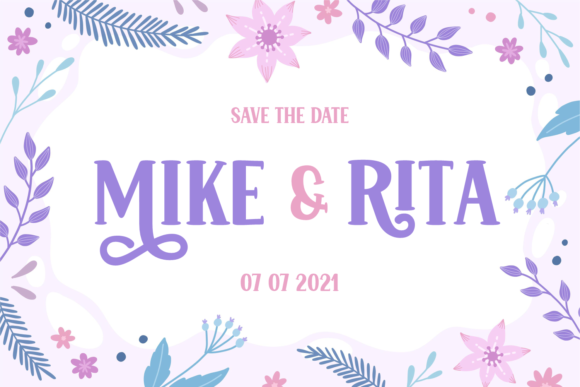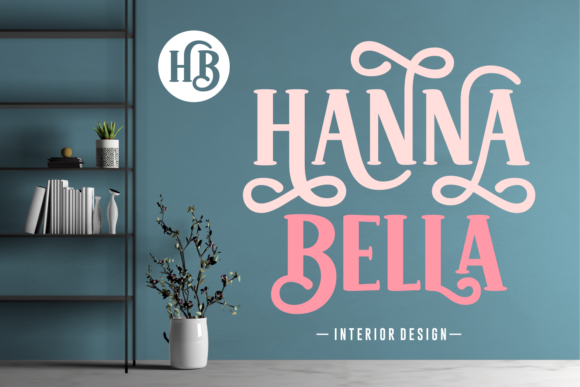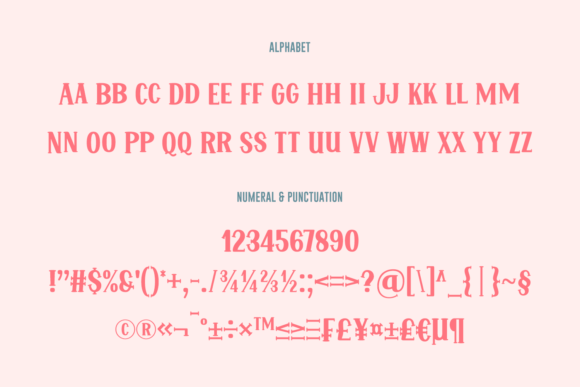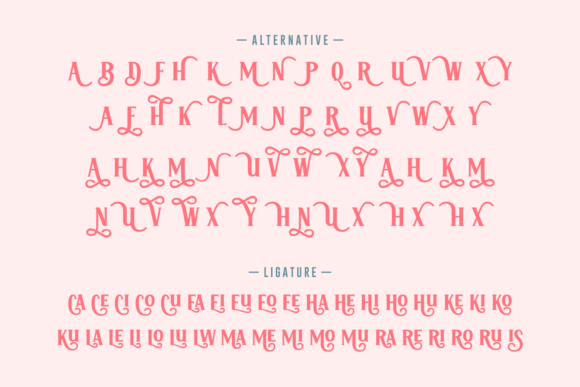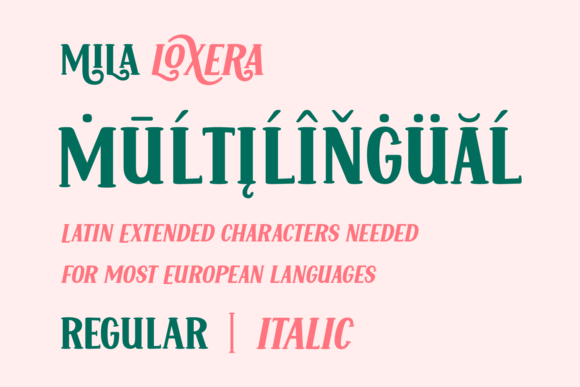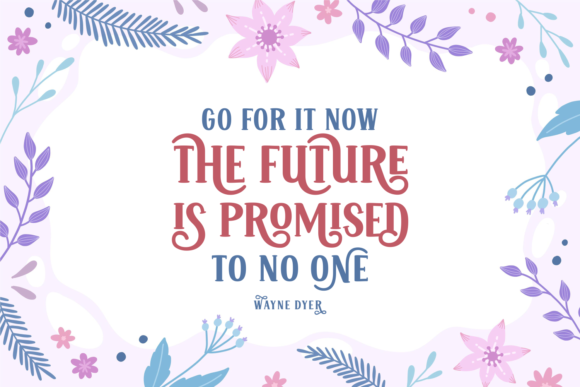
Introduction to Mila Loxera Font Font
Fonts play a crucial role in design, and the Mila Loxera Font font is a typeface that brings both character and versatility to any project. Whether you’re working on a branding project, a website, or a print design, the Mila Loxera Font font offers a unique style that can elevate your work.
Mila Loxera is a cool, bold and distinct serif font.
Imposing yet adaptable, this font will appeal to a wide range of creations Add it confidently to your projects, and you will love the results.
Key Features of Mila Loxera Font Font
Why Choose Mila Loxera Font Font?
The Mila Loxera Font font is more than just a typeface – it’s a design tool that helps you communicate your message with style and clarity. Its unique character set and versatile design make it suitable for a wide range of applications, from elegant invitations to bold headlines.
With its carefully crafted letterforms and balanced proportions, the Mila Loxera Font font ensures readability and visual appeal across all mediums.
What makes Mila Loxera Font font special?
The Mila Loxera Font font stands out with its unique design, exceptional readability, and versatility across various design applications.